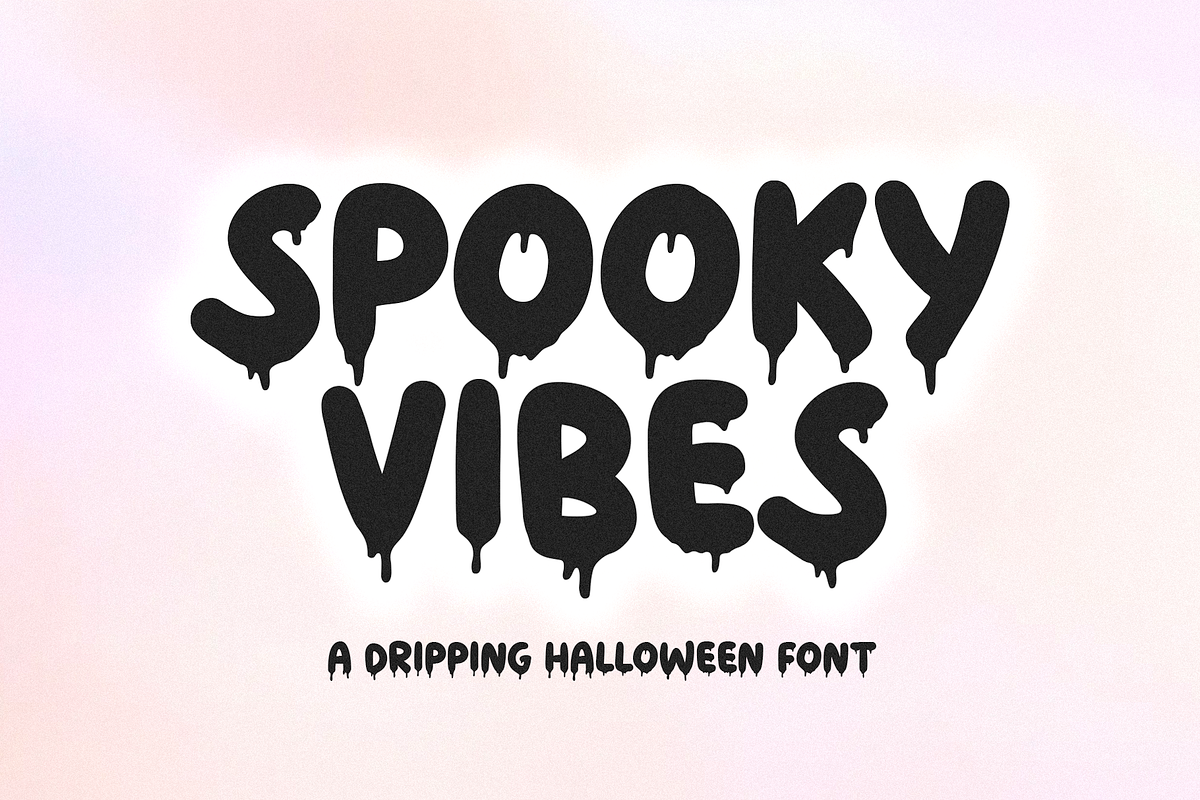
Spooky Vibes Font Free Download is a creepy, dripping display font perfect for all things Halloween and horror-themed. With its eerie style, melting edges, and spooky flair, Spooky Vibes is ideal for haunted house flyers, scary movie posters, Halloween party invites, eerie packaging, and spine-chilling social media graphics.
Designed to send shivers down your spine, Spooky Vibes Font Free Download captures the essence of classic horror and monster movie typography. Its dripping ink effect and distorted shapes create a creepy atmosphere that instantly grabs attention.
Whether you’re crafting seasonal merchandise, creating YouTube thumbnails, or designing themed event promotions, this font brings the perfect mix of fun and fright. Pair it with dark backgrounds, grunge textures, or glowing colors for even more haunting impact.